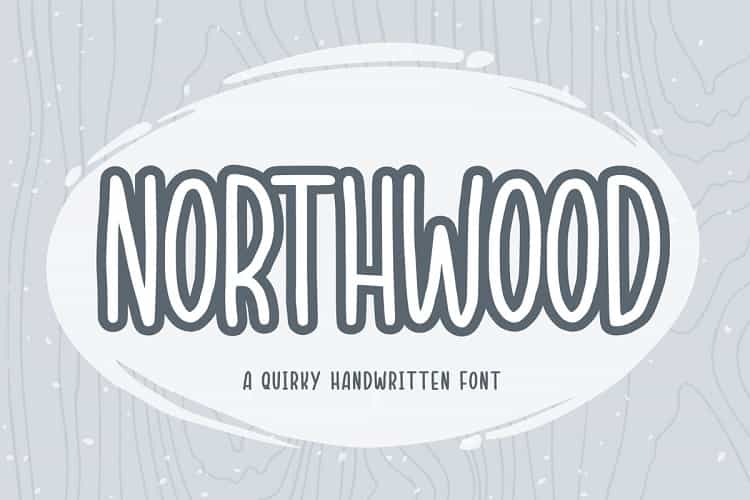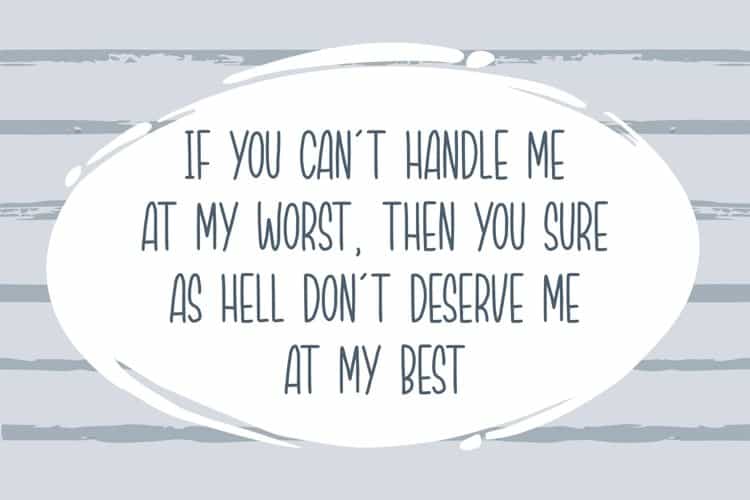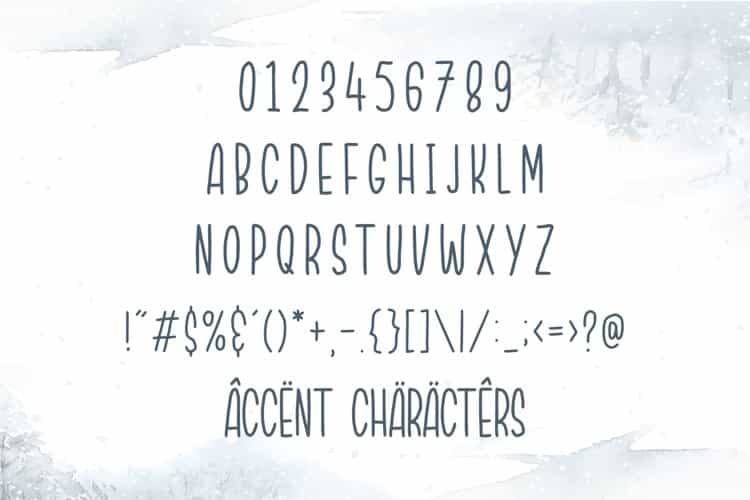
Discover Northwood Quirky Handwritten Font, part of the Handwritten Script collection—a versatile and unique font perfect for adding a personal touch to your projects. Download it for free and enjoy crafting designs with style, from invitations to social media posts. This font is available exclusively for personal use, giving you the freedom to create without limits. Unlock your creativity with Northwood Quirky Handwritten Font today!
Northwood can be described as a quirky handwritten font. Northwood is ideal for branding, packaging, projects, magazines wedding, social media or to simply write words over the background. This font is compatible with TTF, Northwood also multilingual support.